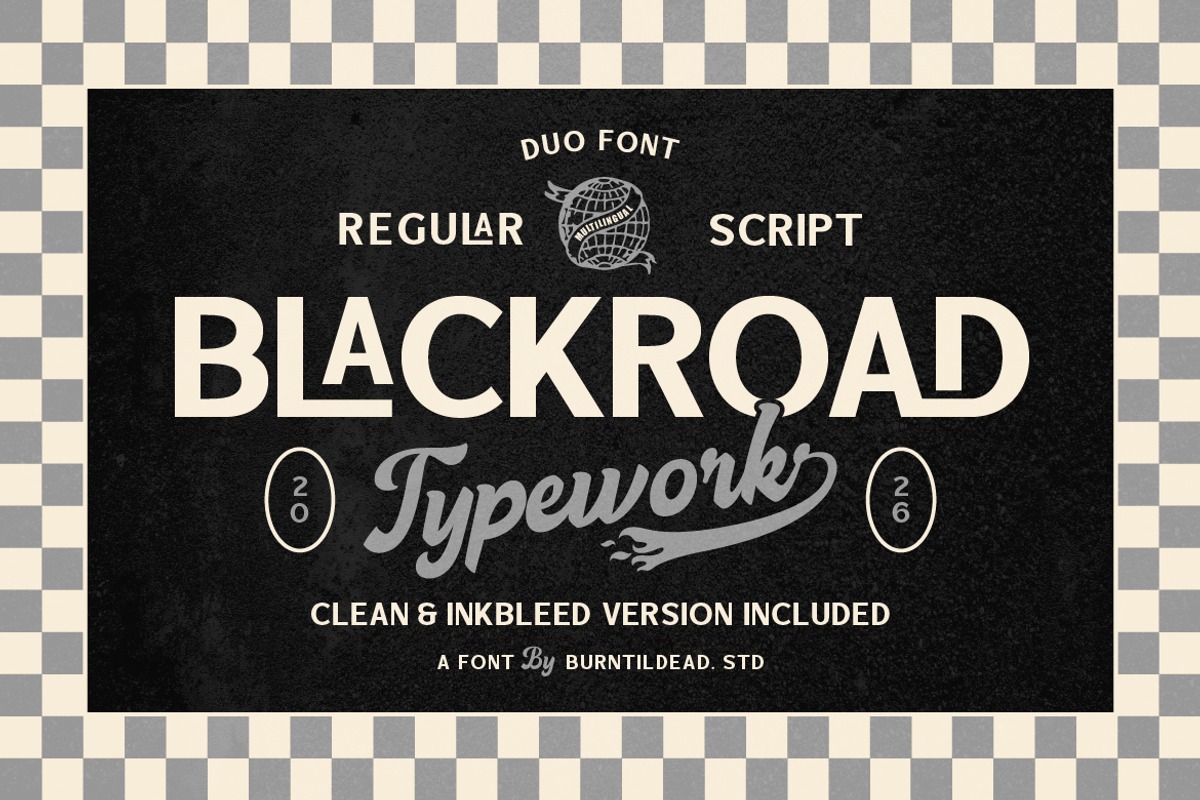
Blackroad – Minimal Sans Font
Blackroad – Minimal Sans Font is a flexible and reliable font created to fit multiple design needs, from branding and packaging to social media and editorial layouts. Blackroad is a bold and stylish duo font that combines a clean sans serif with a smooth vintage script. Designed to bring a strong retro personality, this font is perfect for creating eye-catching designs with a classic and rugged feel.
With its regular and script styles, Blackroad gives you the flexibility to mix and match typography effortlessly. The clean sans serif keeps everything readable and modern, while the script adds a handcrafted, authentic touch.
This font also comes with alternate characters and inkbleed versions, giving your design a more natural, vintage print effect—perfect for achieving that old-school look.